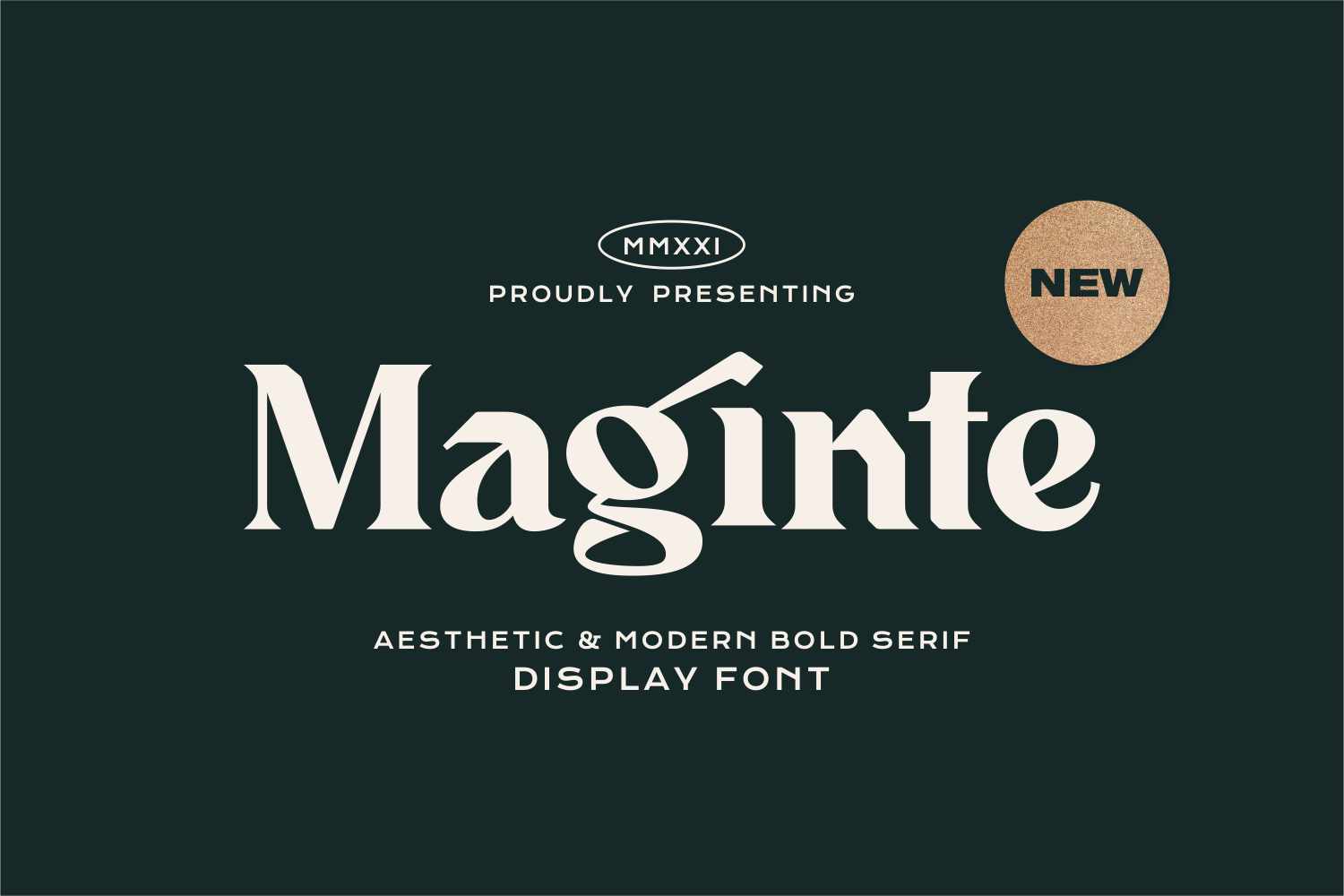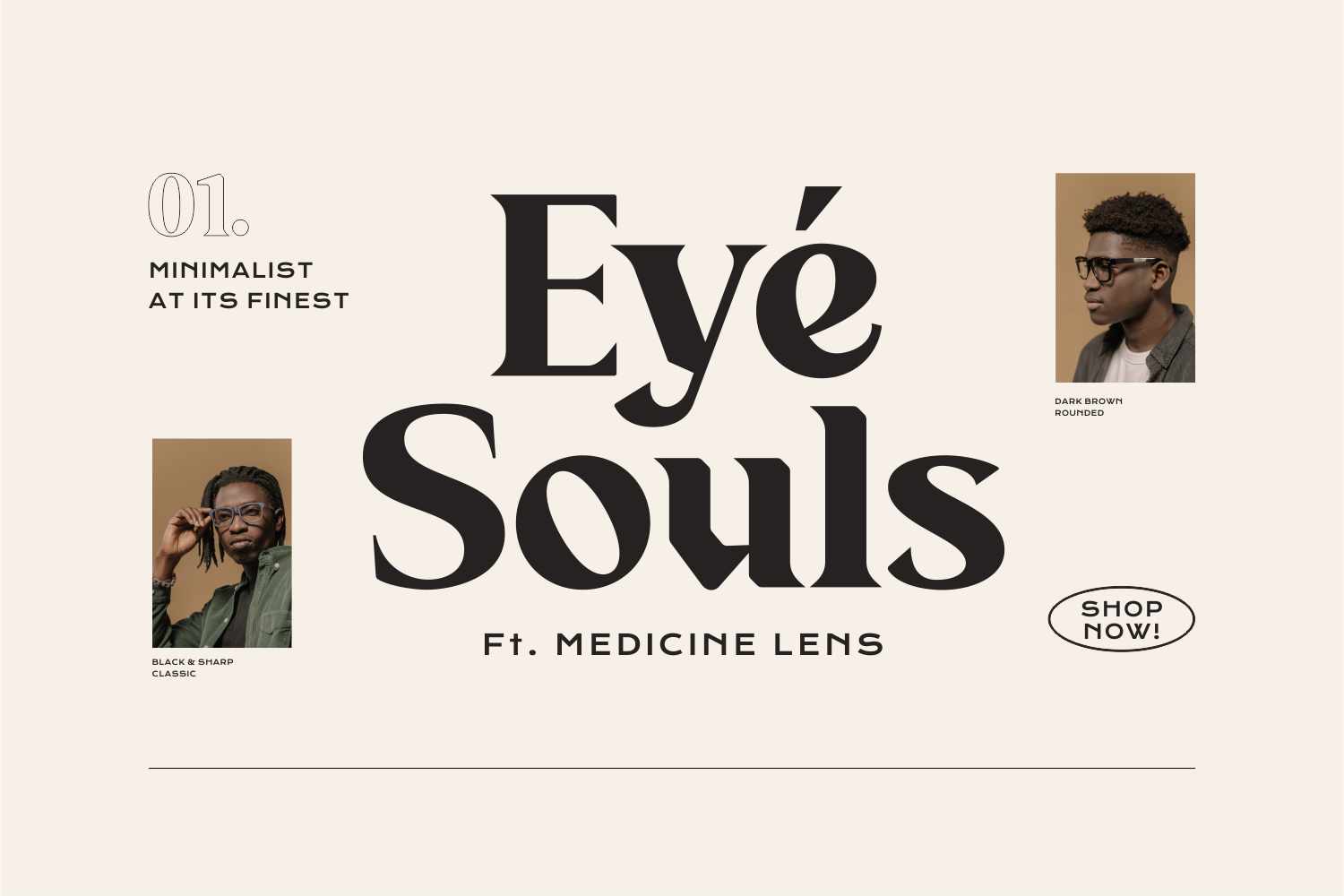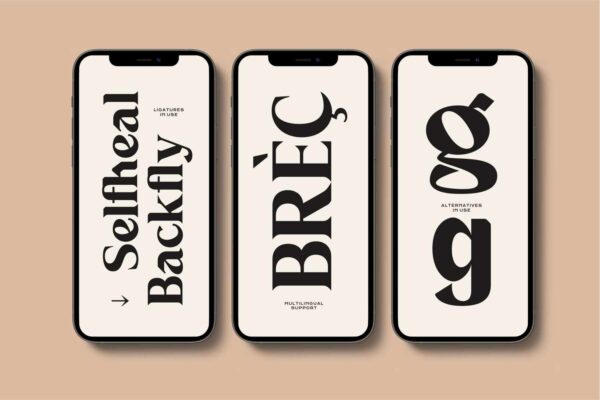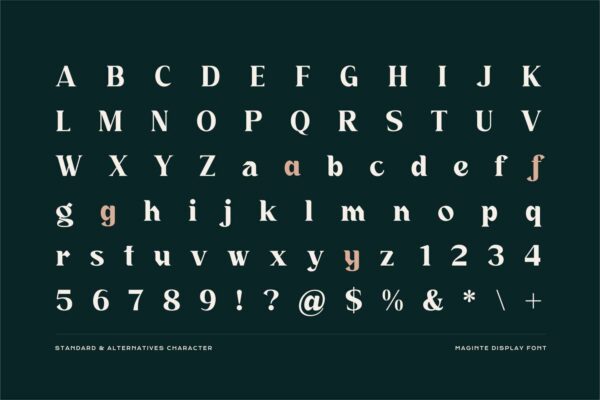
Maginte
Maginte is an aesthetic and modern bold serif font designed to add elegance and power to any visual project. With strong contrasts and sharp yet sophisticated letterforms, this display typeface strikes a perfect balance between traditional serif styles and contemporary aesthetics. Featuring stylistic alternates and multilingual support, Maginte is ideal for branding, fashion headlines, editorial layouts, and high-end packaging.
This font elevates the look of any composition by combining artistic personality with professional readability. Whether used on product packaging, album covers, social media graphics, or luxury branding, Maginte delivers a statement of confidence and refined taste. Its bold structure and stylized serifs ensure that your design stands out with clarity and style.